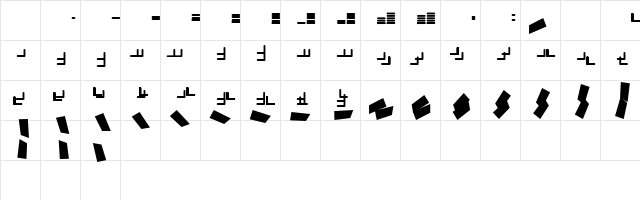
linea straightforward
Style: straightforward
linea Family
linea straightforward
Design Context for linea
linea is a composed and adaptable typeface that performs quietly and consistently across a wide range of design contexts.